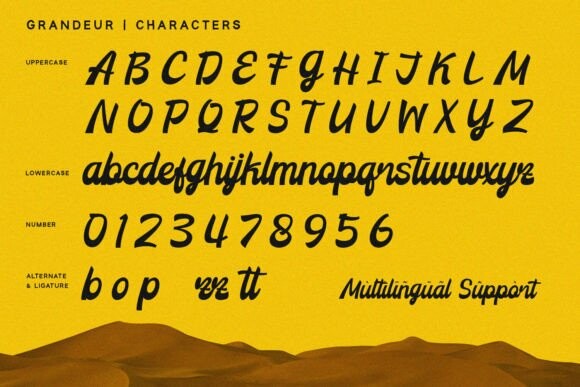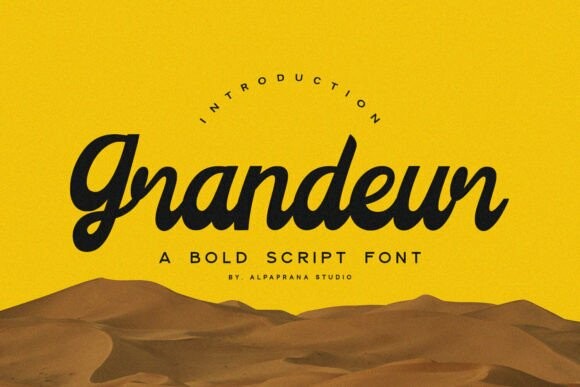
Grandeur Font
Designer: alpapranastudio
Grandeur Font is a bold script font with elegant and modern feels. It will be perfectly used for magazines, packaging, posters, shopping bags, t-shirts, book covers, photography, special events and other design projects.